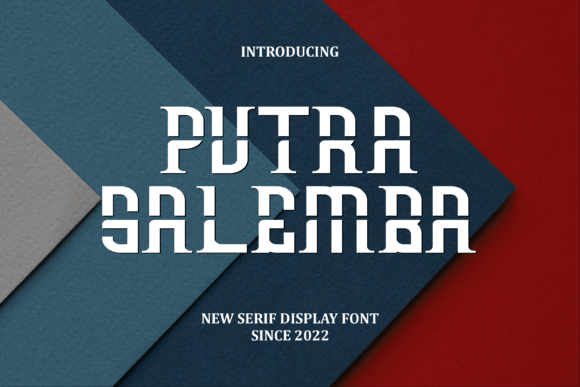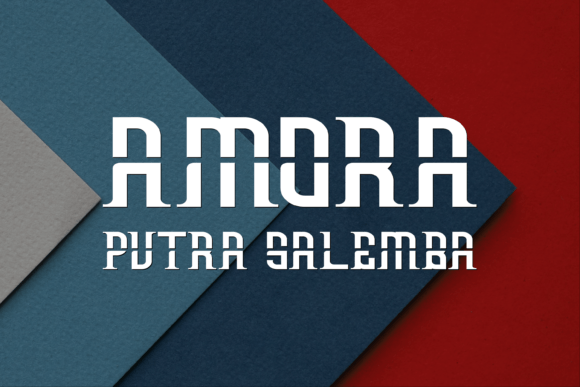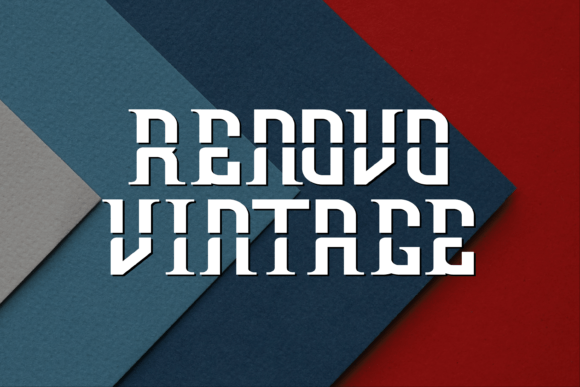
PutraSalemba: A Charming Slab Serif Font
PutraSalemba is a slab serif font with a charming touch of style. Furthermore, this versatile typeface is perfect for designers who want to create interesting designs while maintaining a modern look. Its unique balance of character and contemporary appeal makes it stand out.
Key Features of PutraSalemba
- Charming Style: Offers an appealing and distinctive look.
- Modern Appeal: Maintains contemporary relevance.
- Interesting Details: Features unique design elements that catch attention.
- Balanced Design: Combines character with current trends.
Best Uses for PutraSalemba
Thanks to its unique characteristics, PutraSalemba works especially well for:
- Modern branding projects
- Eye-catching headlines
- Contemporary website design
- Creative advertising
- Distinctive display text
- Stylish marketing materials
- Fresh digital content
When using PutraSalemba in your designs, keep these tips in mind:
- Try it for headlines or short text to show off its charming style.
- Use different sizes to highlight its interesting features.
- Pair with simpler fonts for body text to create balance[2].
- Let its modern appeal enhance contemporary layouts.
To sum up, PutraSalemba is an excellent choice for designers seeking a slab serif font that combines charm with modern relevance. Its ability to display interesting design elements while maintaining contemporary appeal makes it stand out in today’s typography landscape. Whether you’re creating branding materials, designing websites, or developing marketing content, PutraSalemba offers the perfect blend of character and current style.
Moreover, PutraSalemba’s unique design allows it to shine in contexts where both interest and modernity are key. For instance, from digital content to creative advertising, this font can lift your projects with its distinctive style. Also, its charming yet contemporary appearance works particularly well in designs that aim to make an interesting impact while staying current.
In conclusion, PutraSalemba truly captures the essence of modern charm in slab serif typography. Its versatility across different applications shows how well it can serve various creative needs. Therefore, for those wanting to add a touch of interesting style to their work, PutraSalemba can enhance any design with its unique character. Ultimately, it’s perfect for designers aiming to make a charming, modern impact across creative projects.